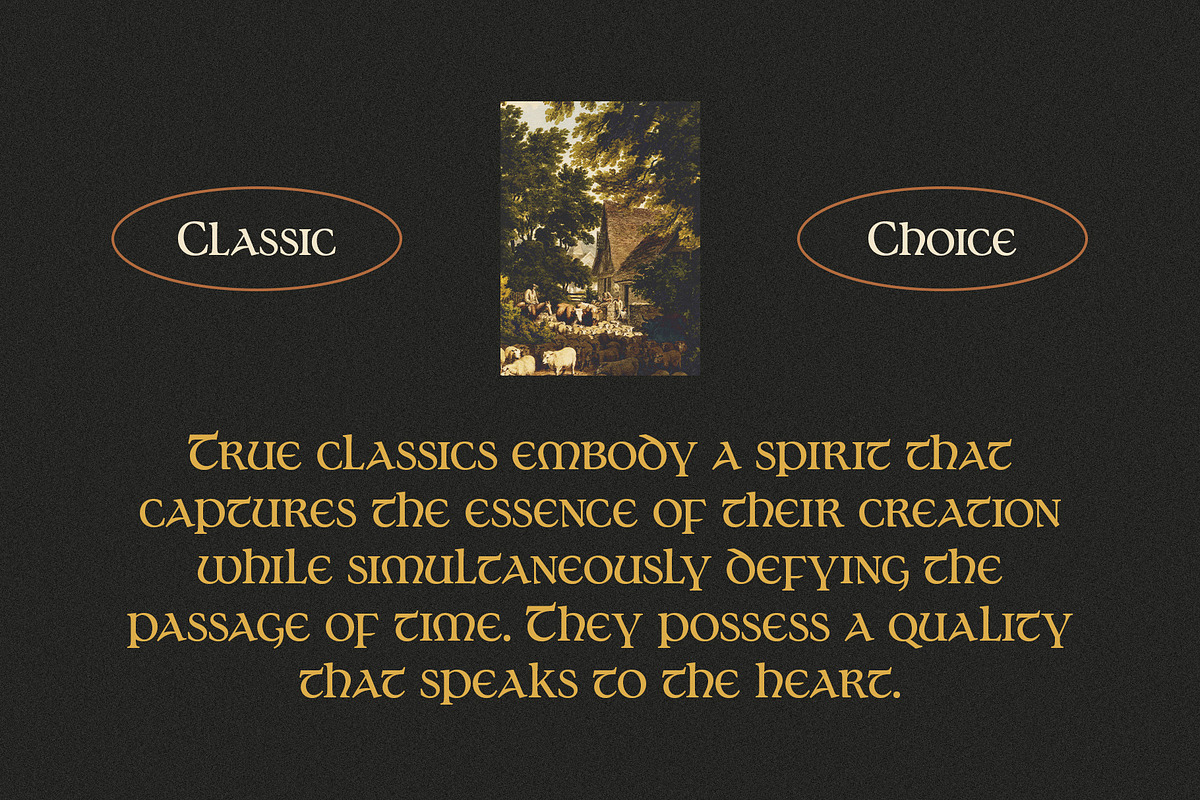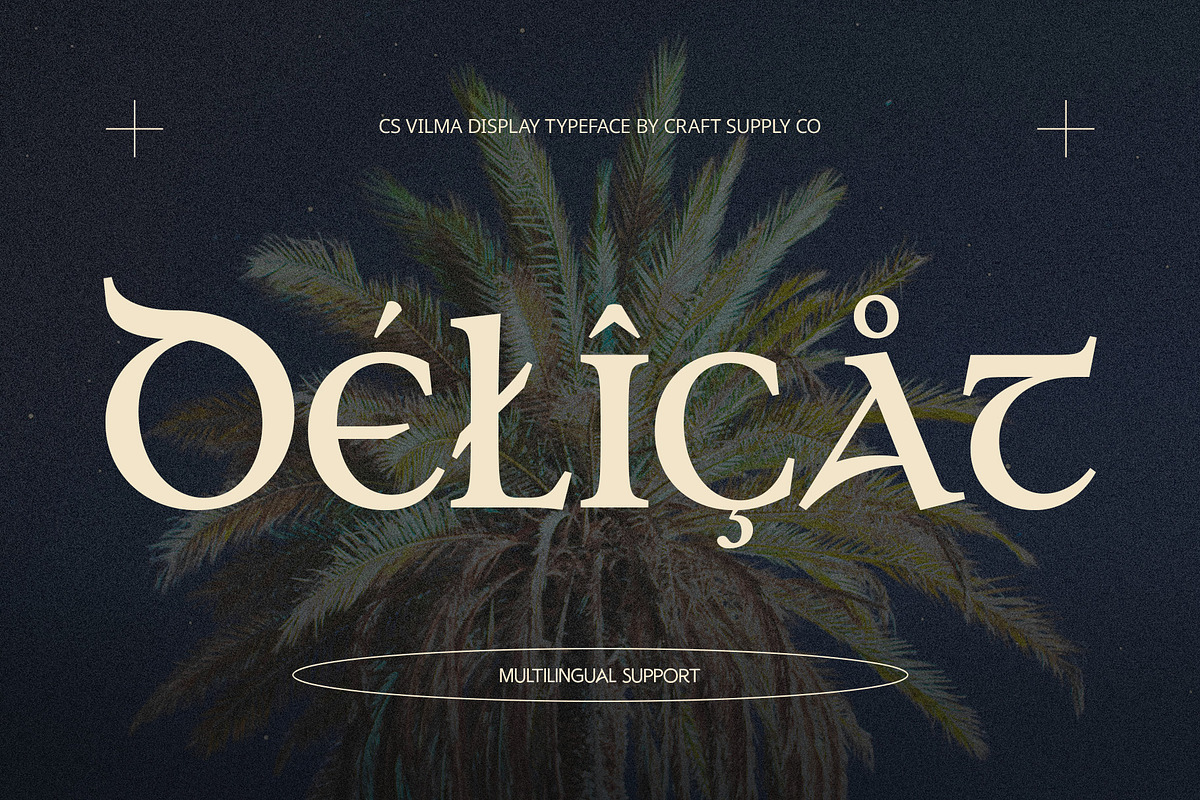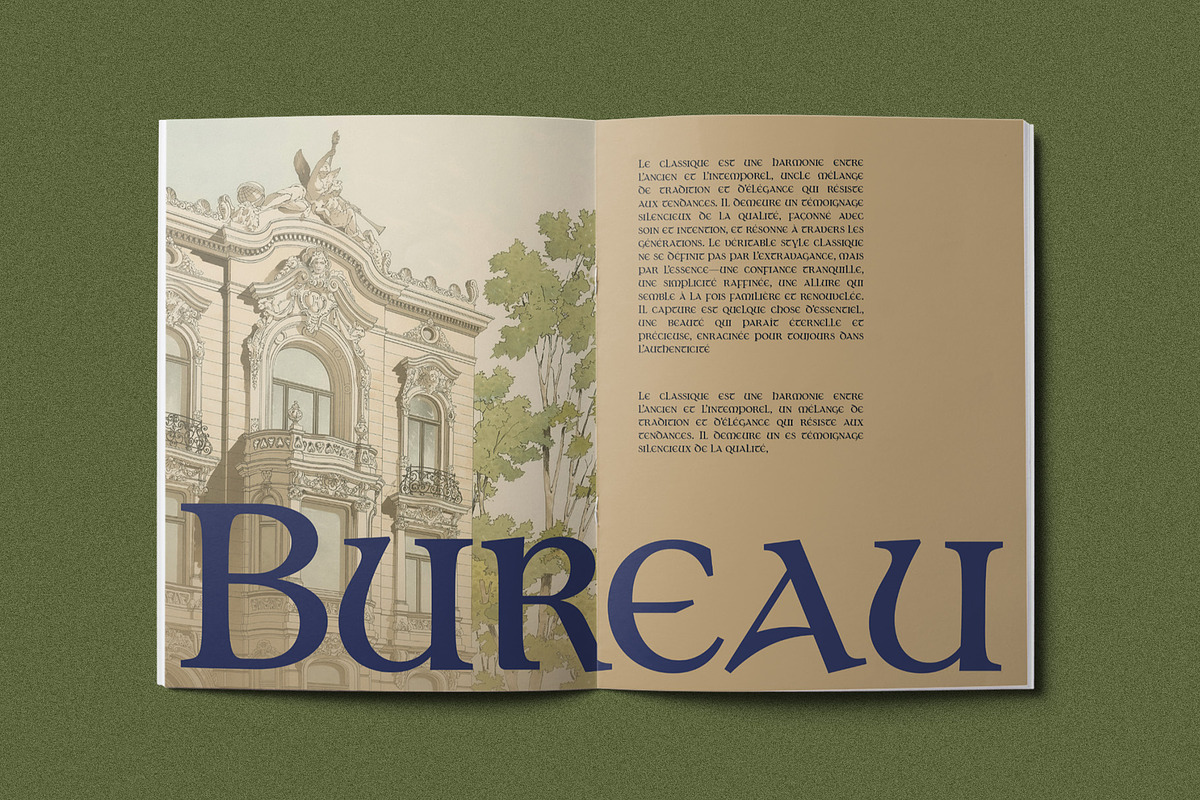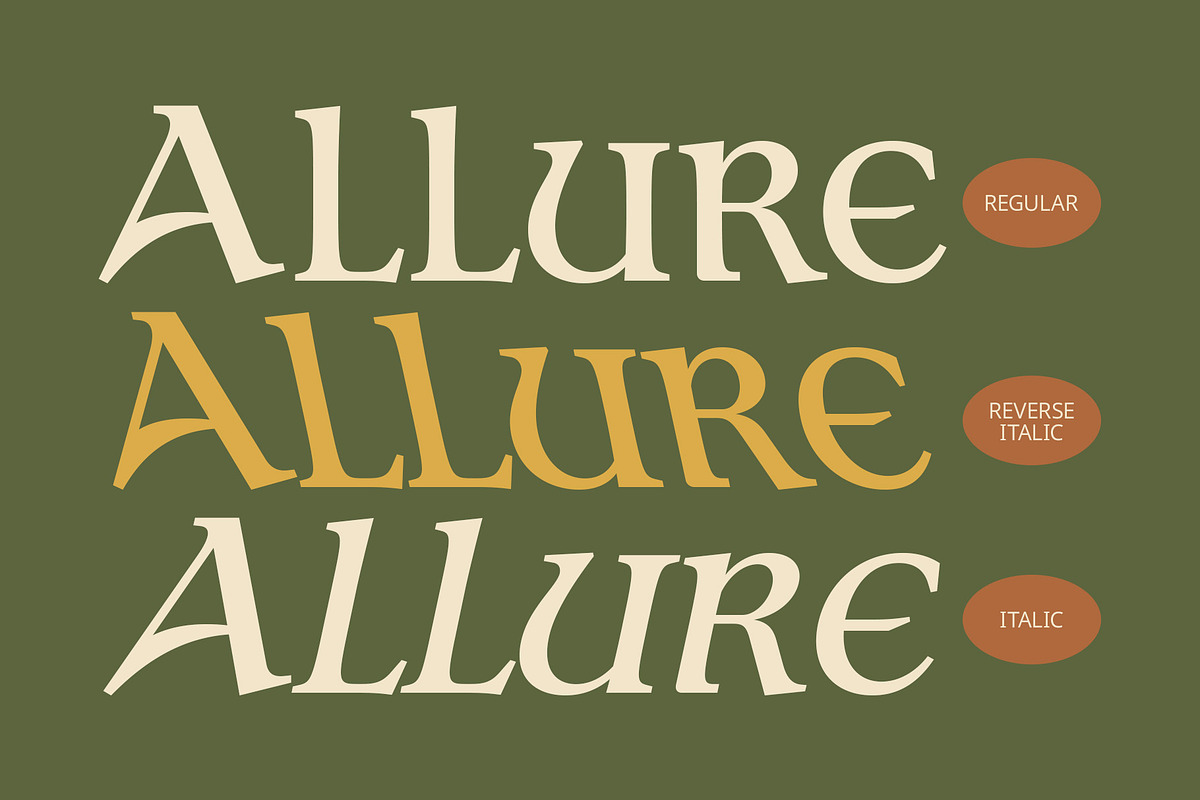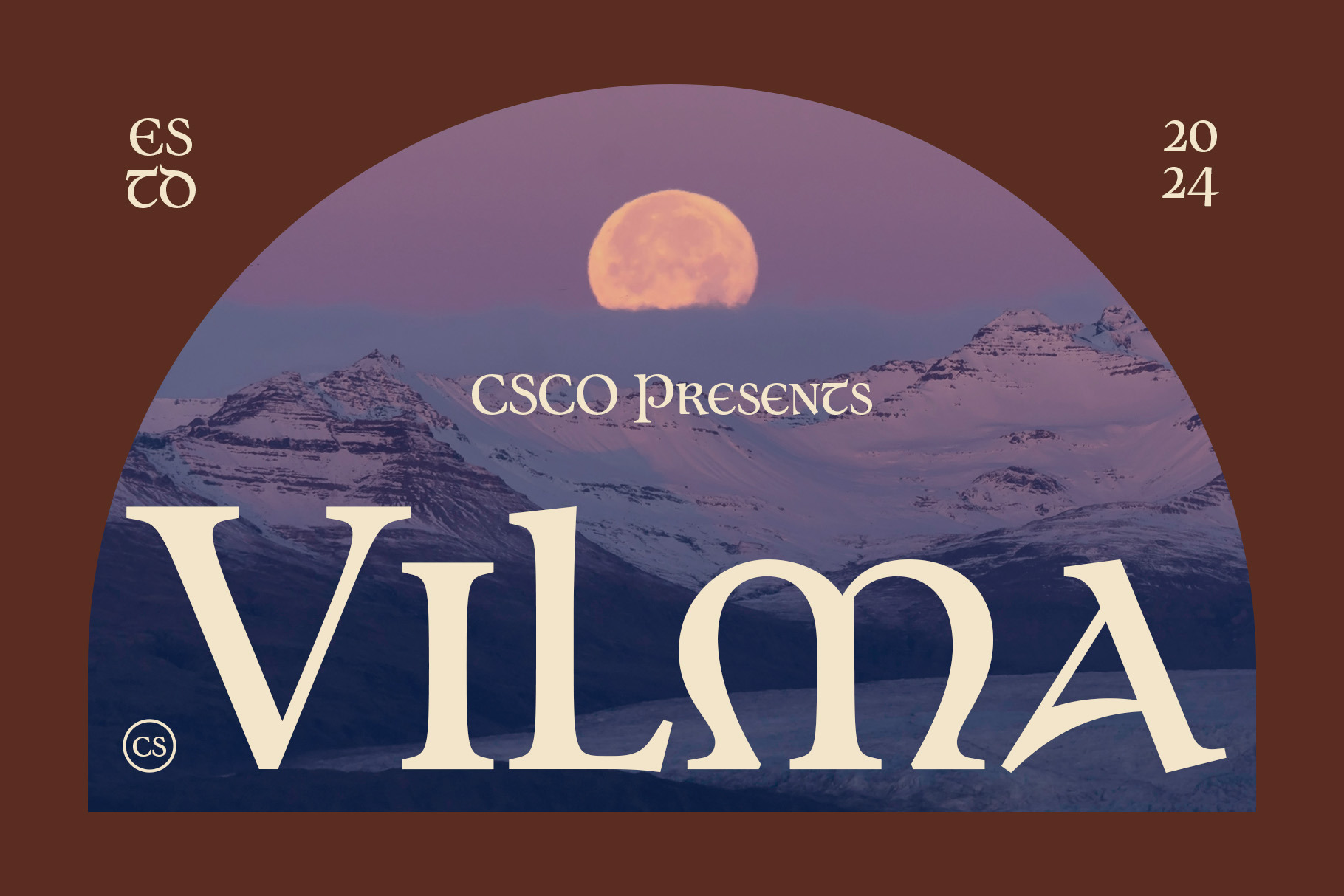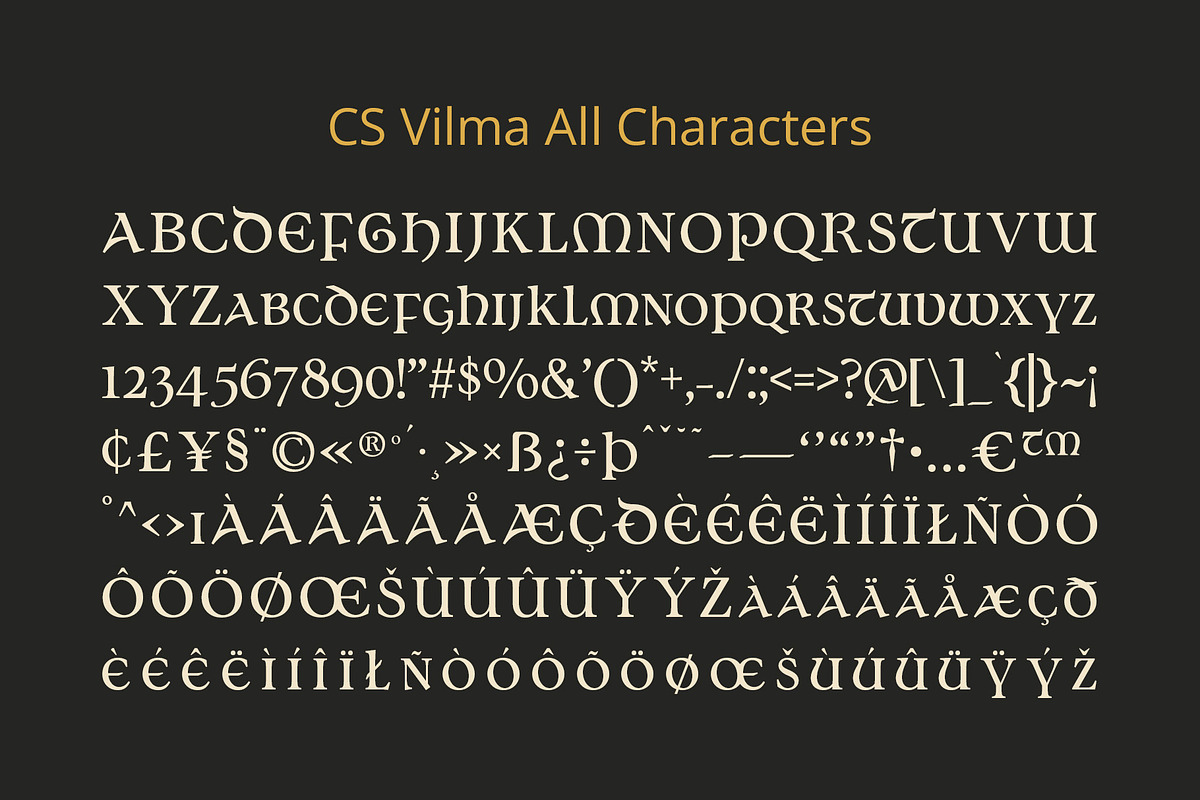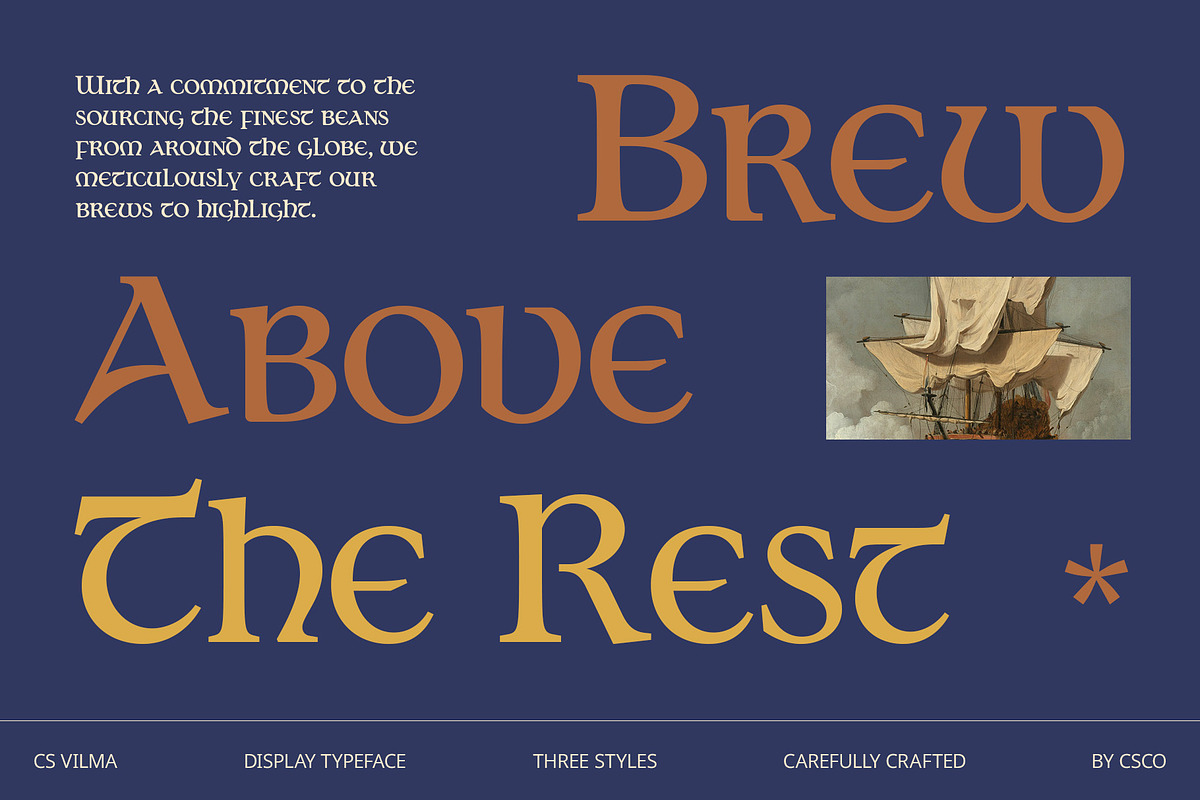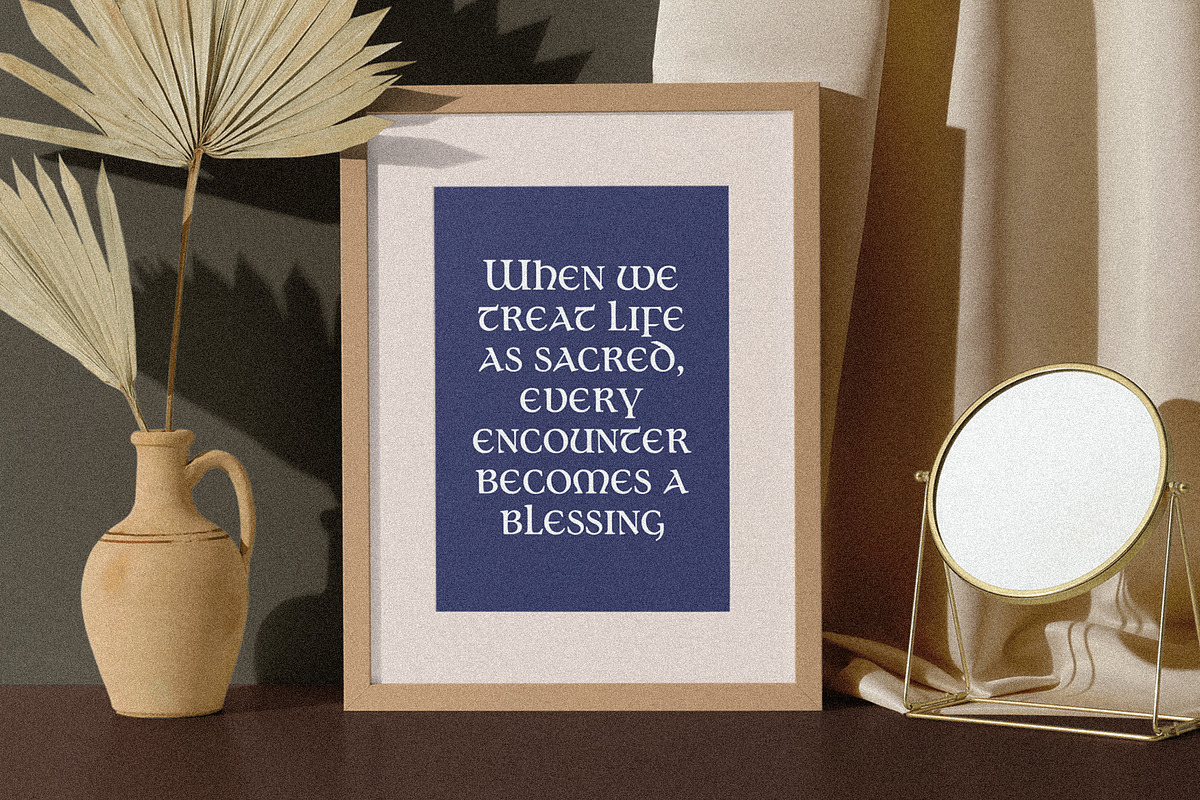
CS Vilma – Uncial Font
CS Vilma – Uncial Font: Embrace the Elegance of History
Classic Uncial Serif Display Font CS Vilma is a classic uncial serif display font that draws inspiration from the exquisite handwriting of the medieval era, reminiscent of the beauty found in ancient manuscripts. Its main characteristics include smooth curves, balanced proportions, and intricate decorative details that elevate its elegance. Each letterform is carefully crafted to evoke a sense of history, lending an air of sophistication to your designs.
Conveying Beauty and Nostalgia This font shines in formal contexts, such as invitations and traditional branding, where its artistic appearance can truly take center stage. CS Vilma conveys a profound sense of beauty and nostalgia, making it ideal for projects that seek to highlight authenticity and refinement. The delicate curves and ornamental flourishes create an inviting visual experience that resonates with audiences, enhancing the emotional connection to the message being conveyed.
Versatile for Refined Design Applications CS Vilma is well-suited for a variety of design applications, including wedding invitations, literary works, and any project that requires a touch of classic charm. Its ability to impart a timeless quality makes it perfect for designs aiming to capture attention while maintaining a sophisticated demeanor. Whether you’re creating elegant stationery or branding that honors tradition, this font will infuse your work with grace and character.
- CS Vilma Regular
- CS Vilma Italic
- CS Vilma Reverse Italic